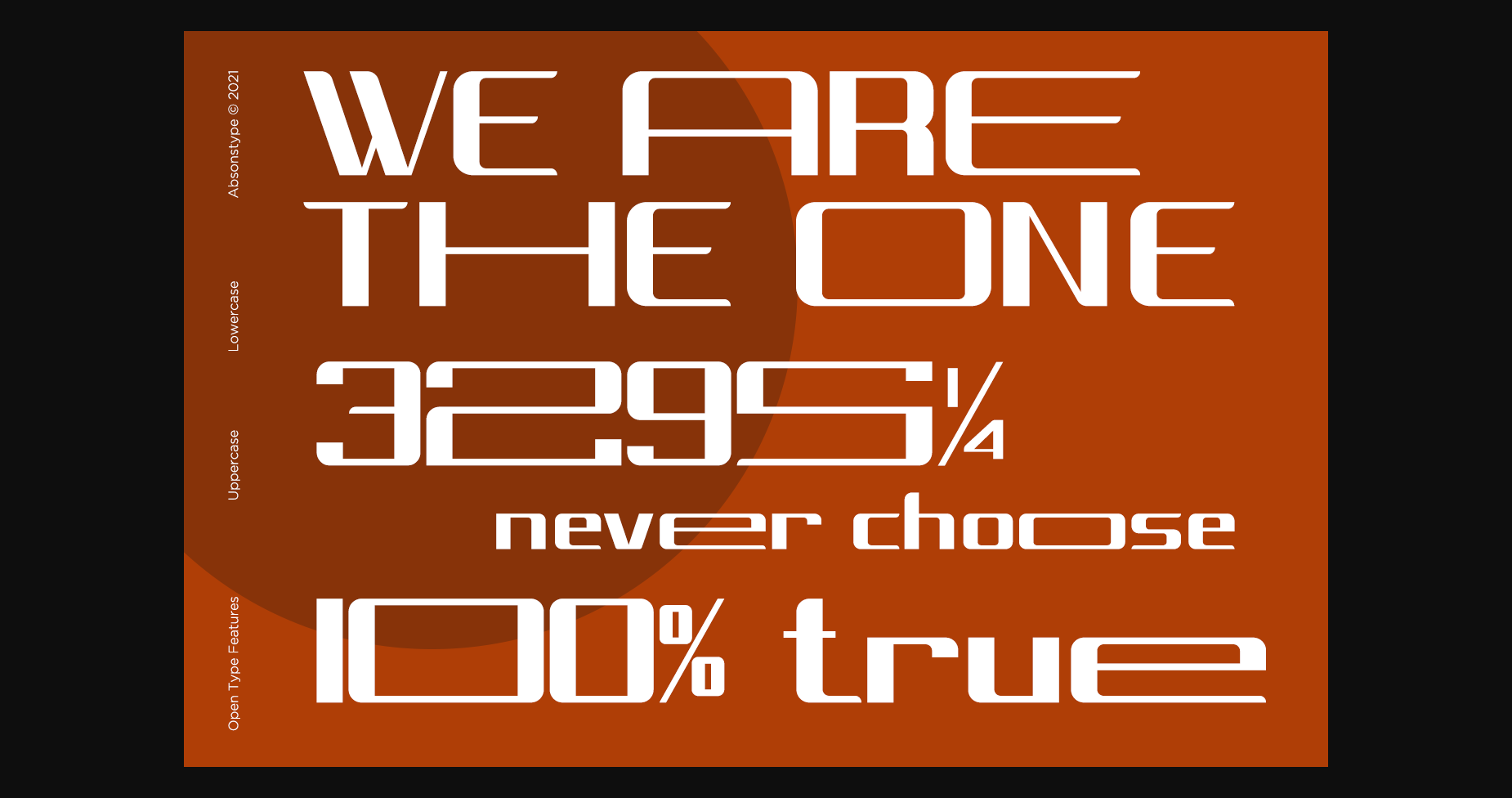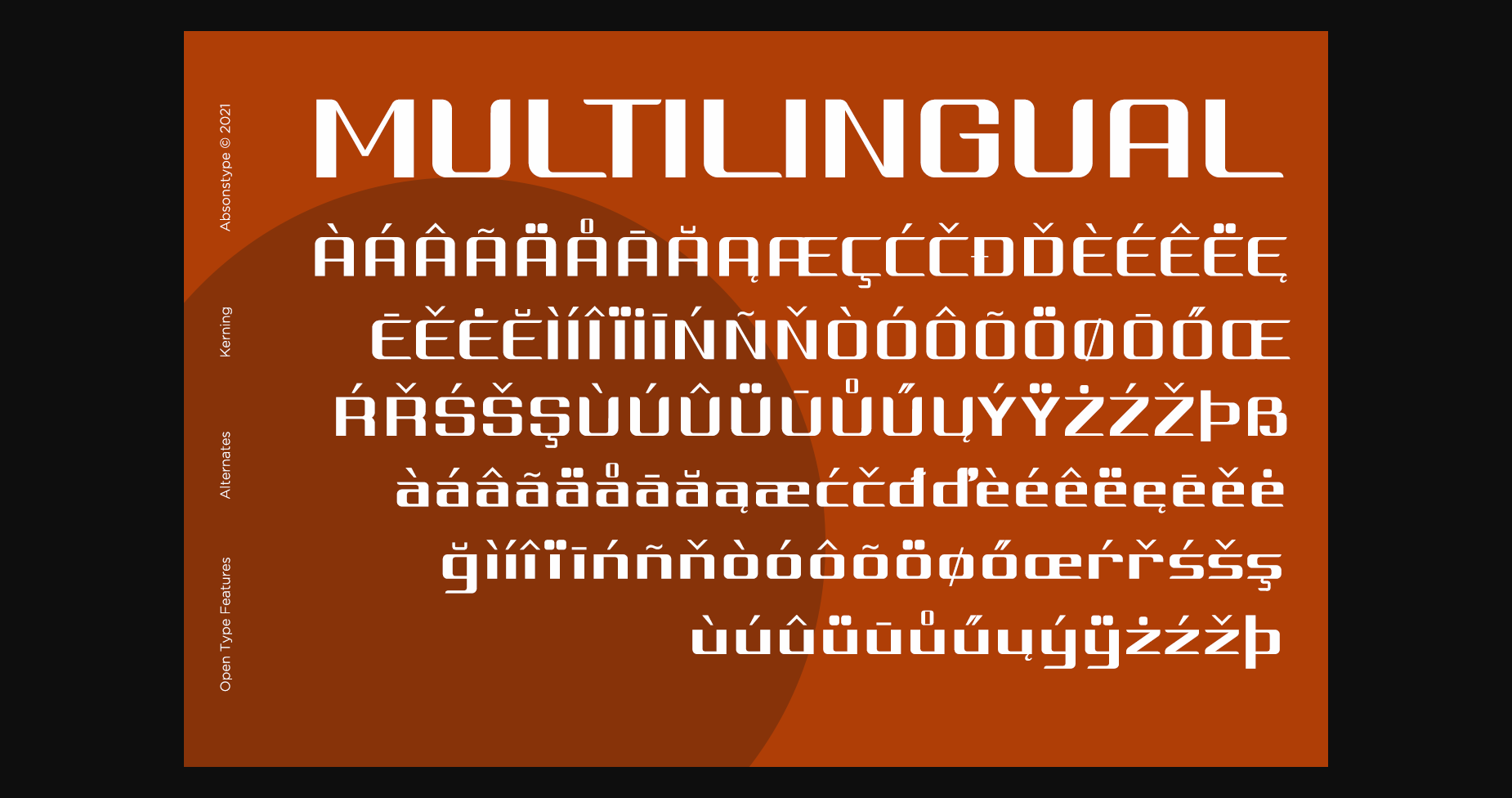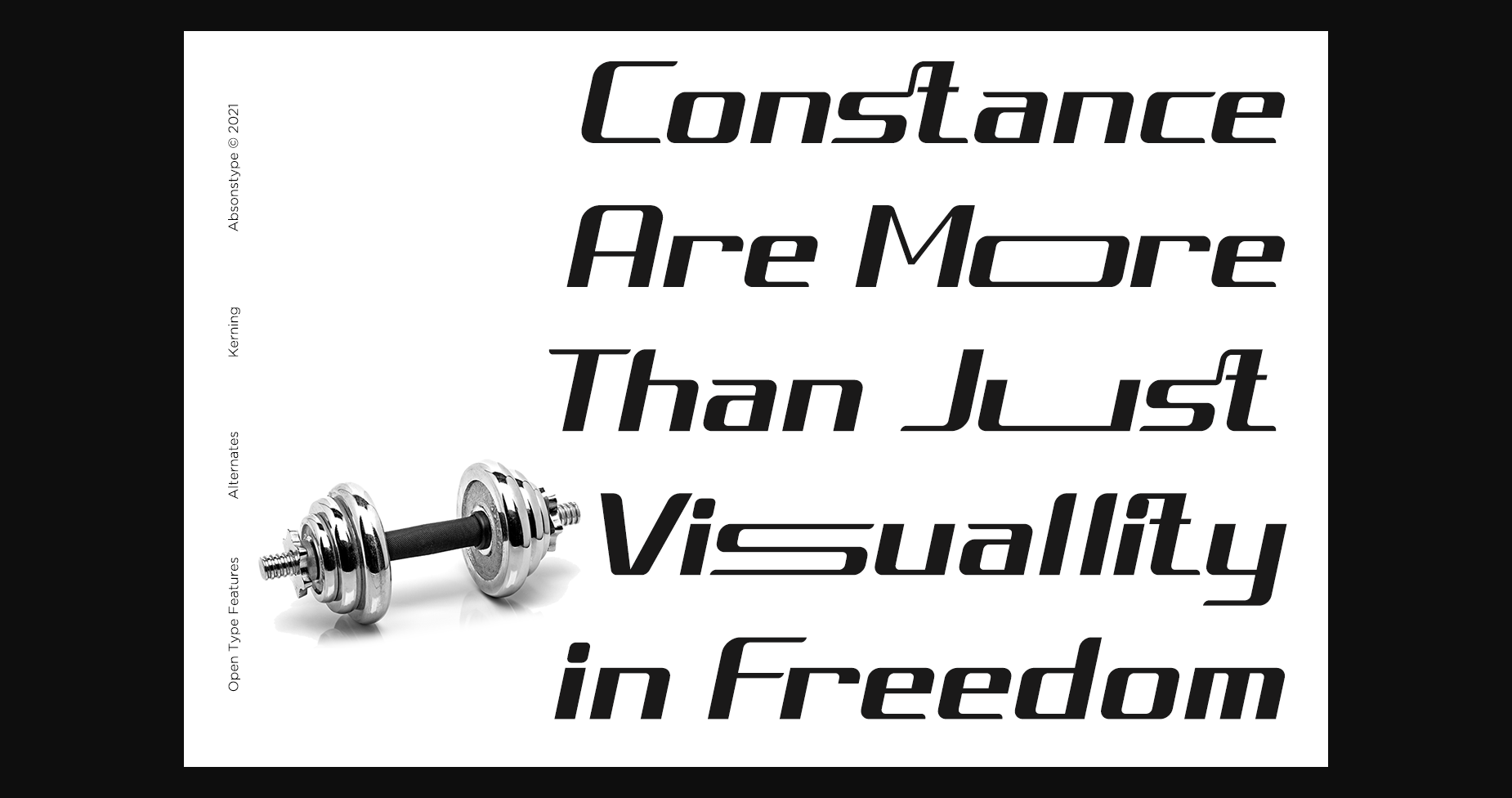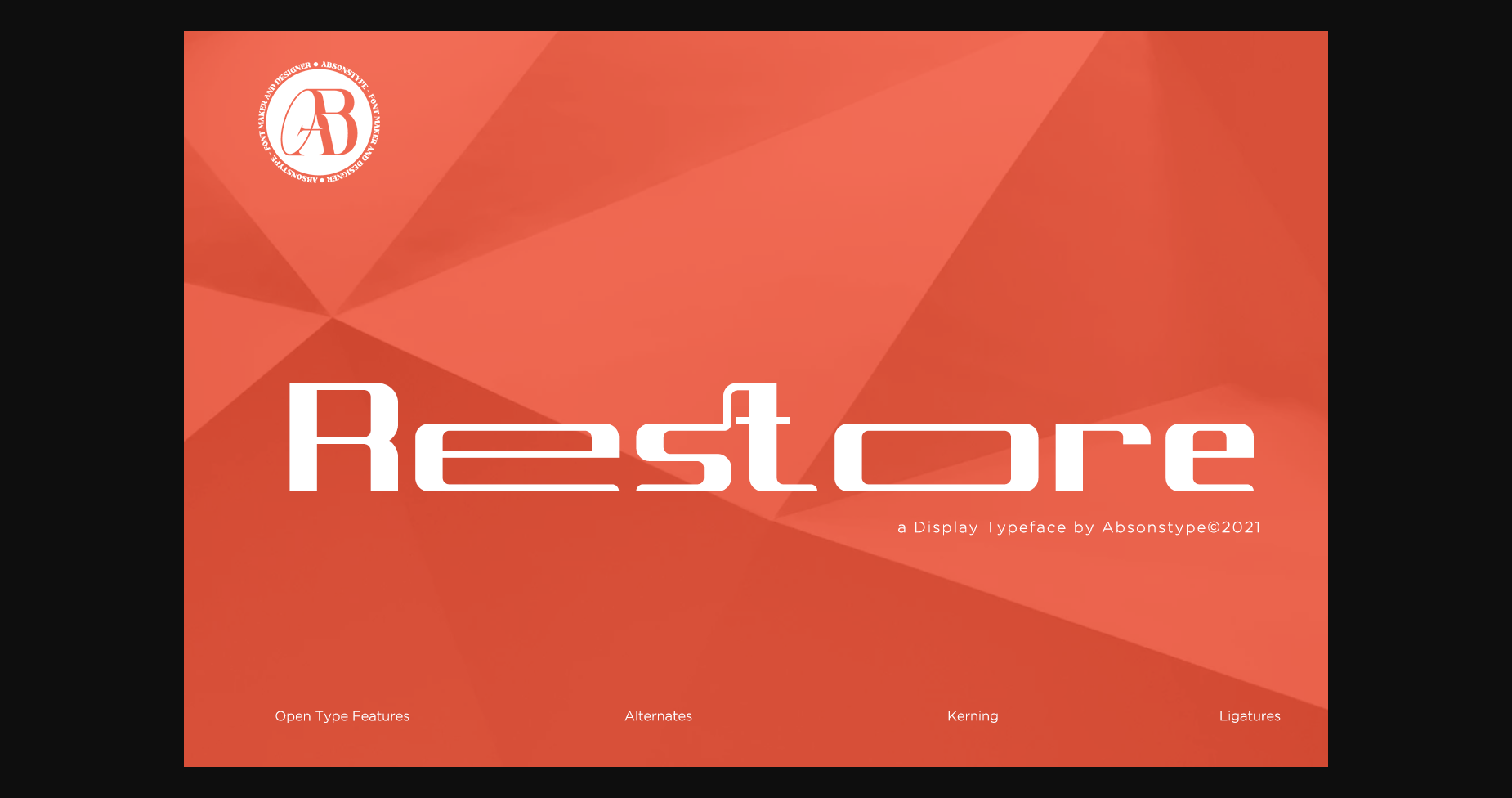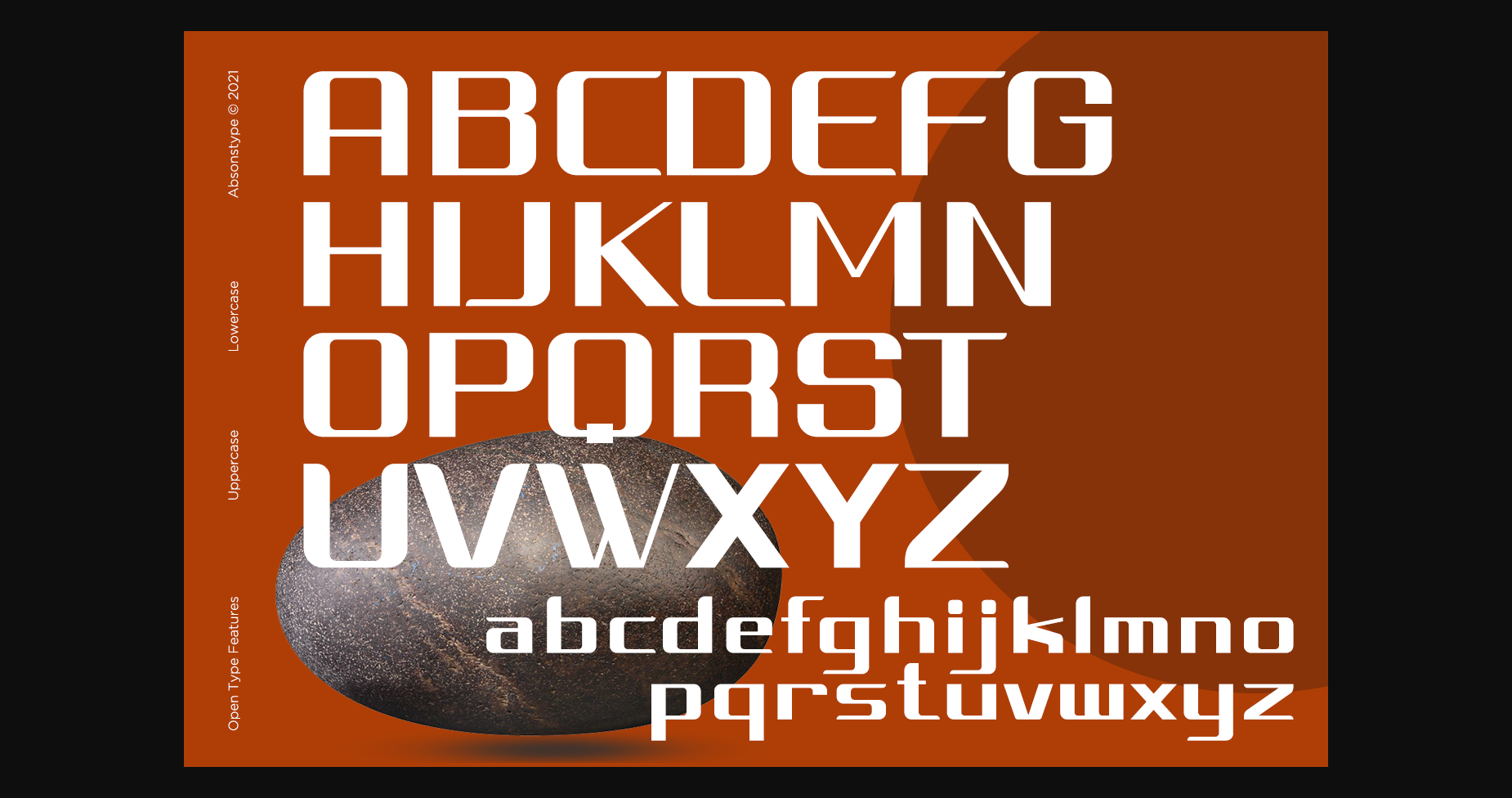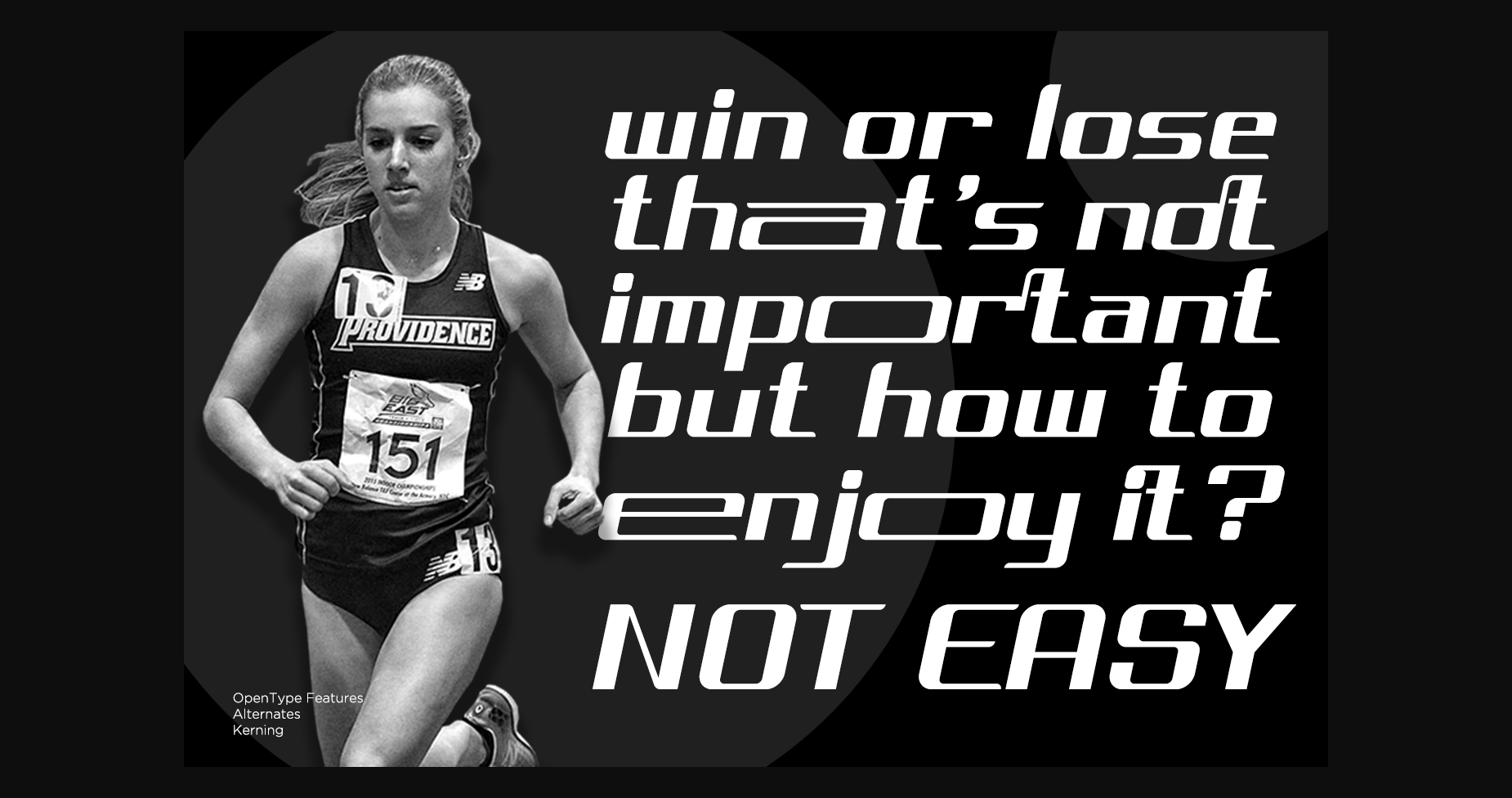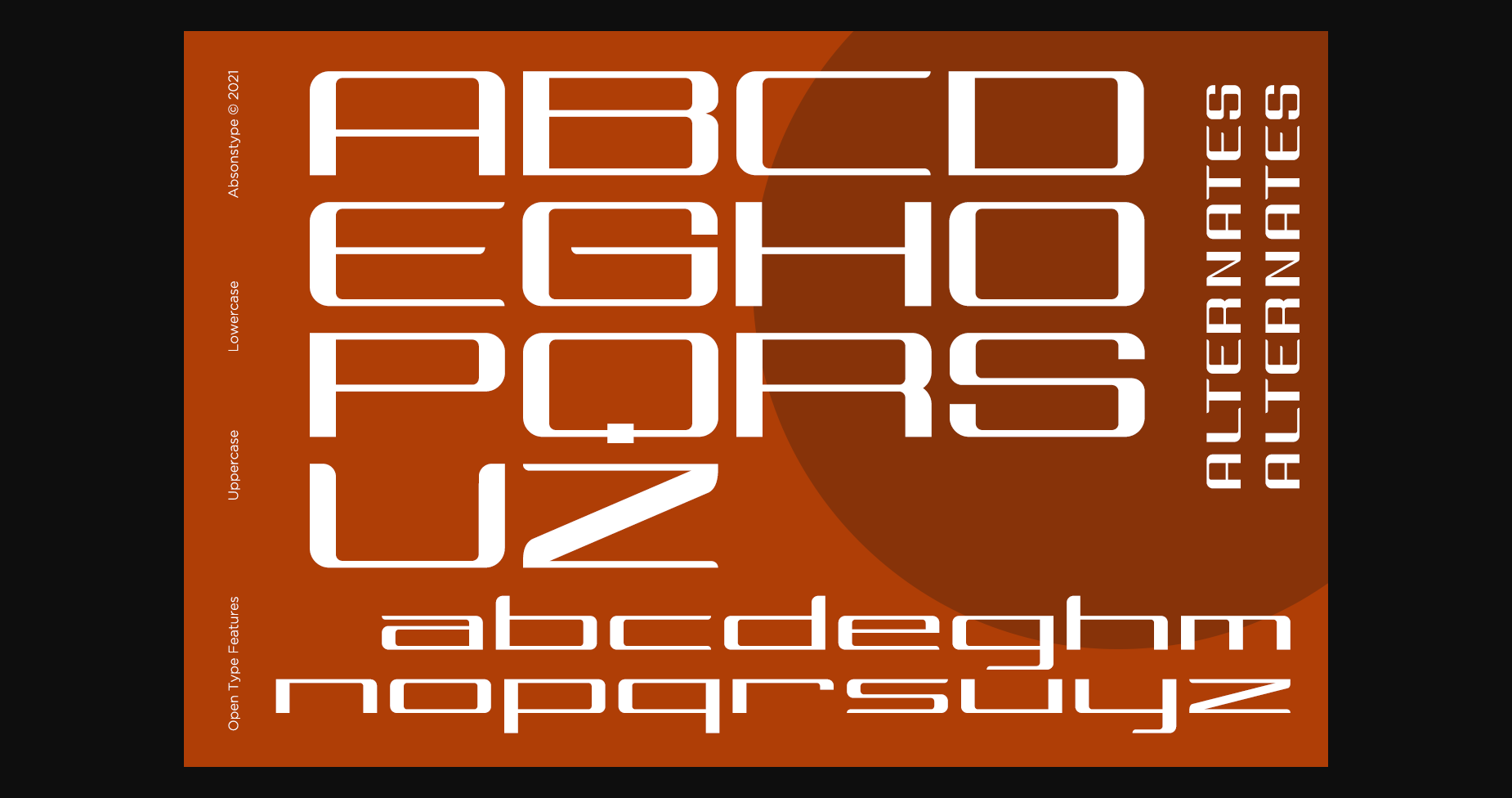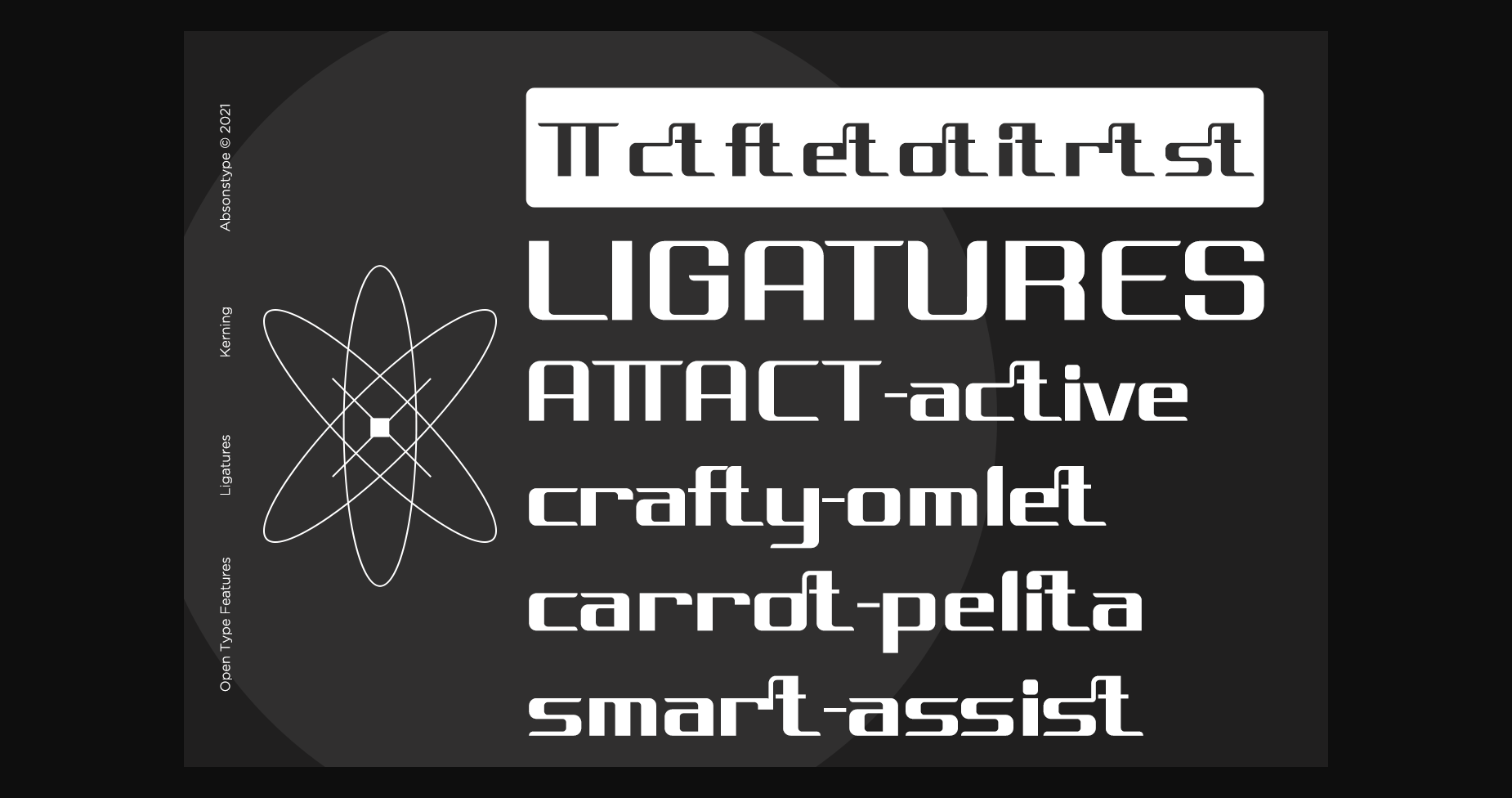
Restore Font
About Restore Font
Restore is a modern and minimalist sans serif font with a wide and spacious design. The letters are clean and legible, making it perfect for titles, headlines, and branding. The font’s bold and assertive style is perfect for designs that require a strong visual impact, while its simple and elegant design gives it a timeless appeal.